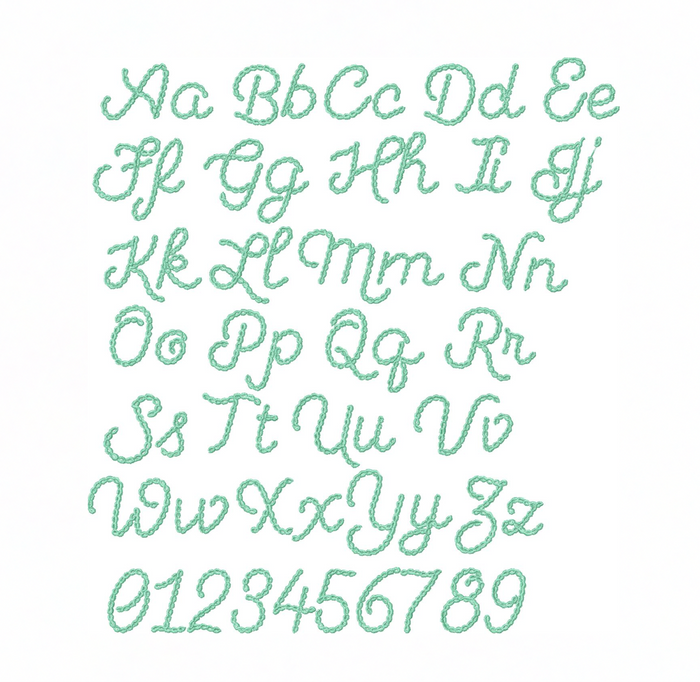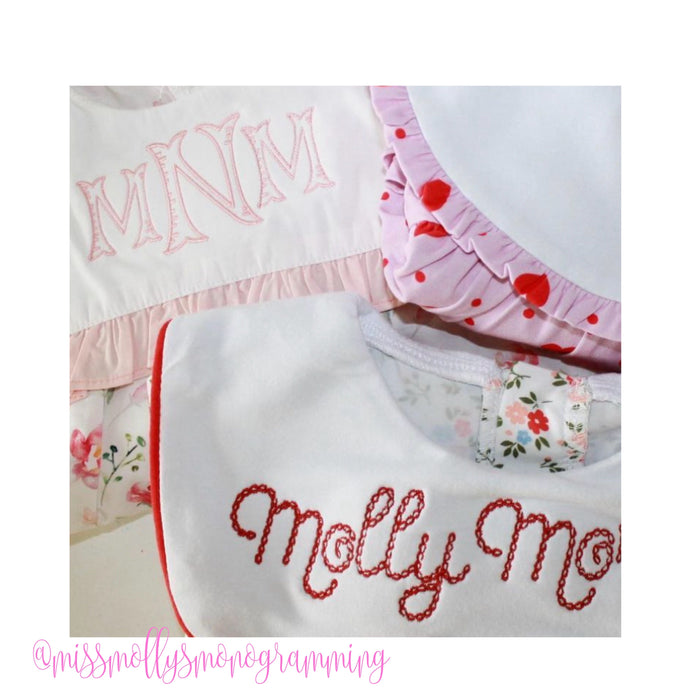
Ginny Chain Satin Embroidery Font 4x4
Discover the Ginny Chain Satin Stitch Embroidery Font, a versatile single-color satin stitch font featuring both uppercase and lowercase letters from A-Z and numbers 0-9. Perfect for custom monograms and enhancing your creative projects, this font supports various sizes: 1”, 1.5”, 2.5”, and 3”.